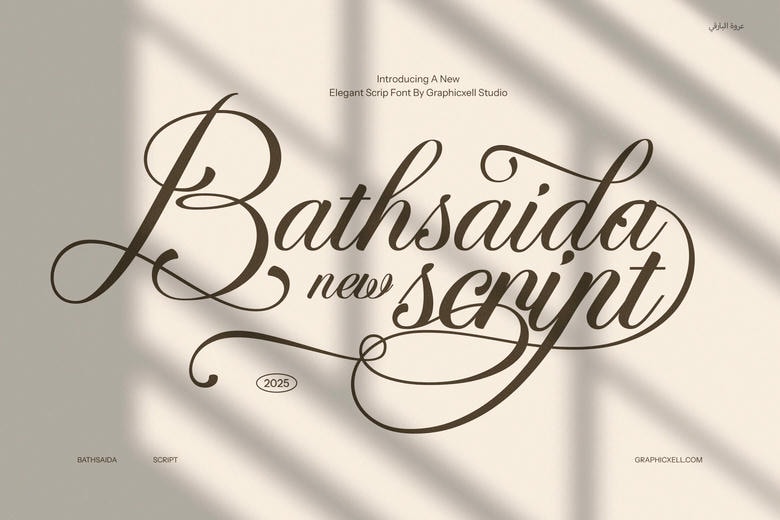
Bathsaida Font
Bathsaida Calligraphy Script Font is a graceful typeface with a classic, elegant style. Its flowing strokes and fine details add a touch of luxury and artistry to your projects. With smooth curves and stylish flourishes.
Bathsaida Calligraphy Script is made for designers, artists, and creatives who want a font that feels sophisticated, romantic, and expressive. Its smooth flow and detailed design.
Bathsaida Calligraphy Script Font